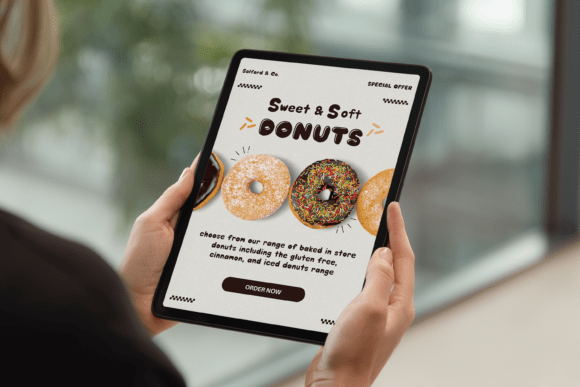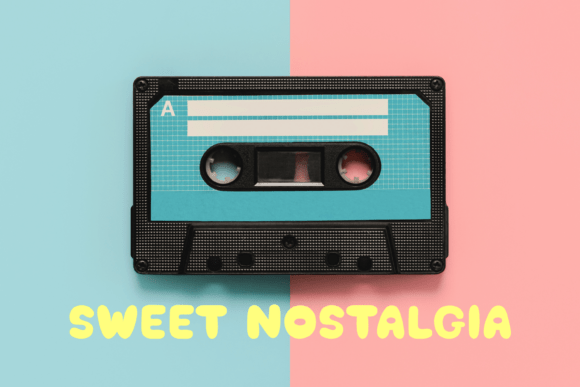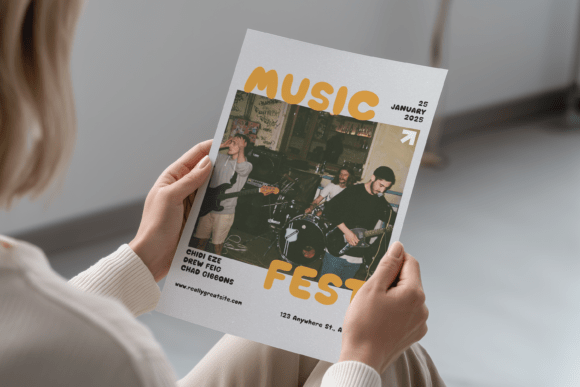
Introduction to Chubby Soda Font
✨ Chubby Soda – Rounded Bubble Font with 6 Playful Styles Bring the fun to your designs with Chubby Soda, a bouncy, retro-inspired, rounded bubble font perfect for projects that need a dose of cuteness and charm.
Whether you’re designing for kids, creating posters, launching a product, or making quirky branding elements, Chubby Soda delivers ✨ Perfect For: – Social media graphics – Cricut designs for stickers, labels, and DIY crafts – Procreate lettering and illustrations – Goodnotes / Notability for cute digital journaling – Canva for posters, social media, YouTube thumbnails, and printables – Kids’ products, birthday invites, classroom worksheets – Merch & POD items like t-shirts, mugs, and cards – DIY holiday crafts.
Key Features of Chubby Soda Font
Why Choose Chubby Soda Font?
Chubby Soda Font offers exceptional quality and versatility, making it a valuable addition to your design toolkit. Whether you’re creating for personal projects or commercial use, Chubby Soda Font delivers professional results.